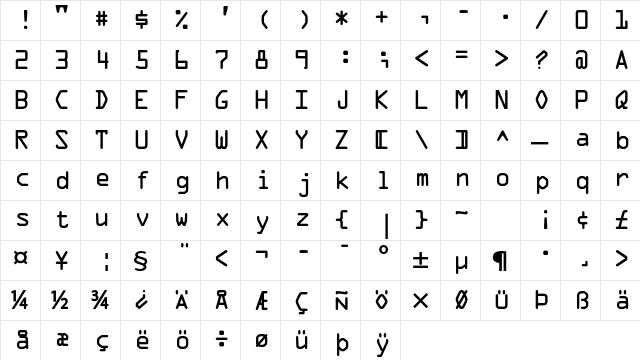
OCR A Std Medium
| Designer | American Type Founders Staff |
Design Context for OCR A Std Typeface
OCR A Std takes a measured approach to typography — its balanced proportions and neutral character make it a reliable workhorse for both digital and print work.